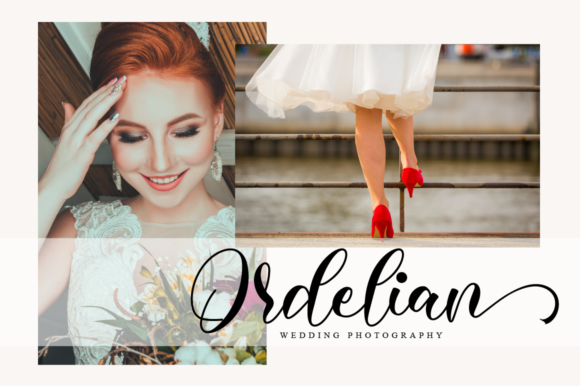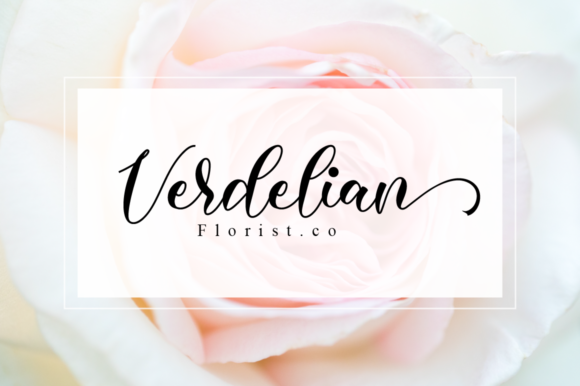
Gardenia Font
db-ku.com - Script & Handwritten -- Gardenia is an elegant and flowing handwritten font. It is PUA encoded which means you can access all of the glyphs and swashes with ease! It features a varying baseline, smooth lines, gorgeous glyphs and stunning alternates. Not too thin and not too thick, balanced and varied, Gardenia was designed to enhance the beauty of your projects.